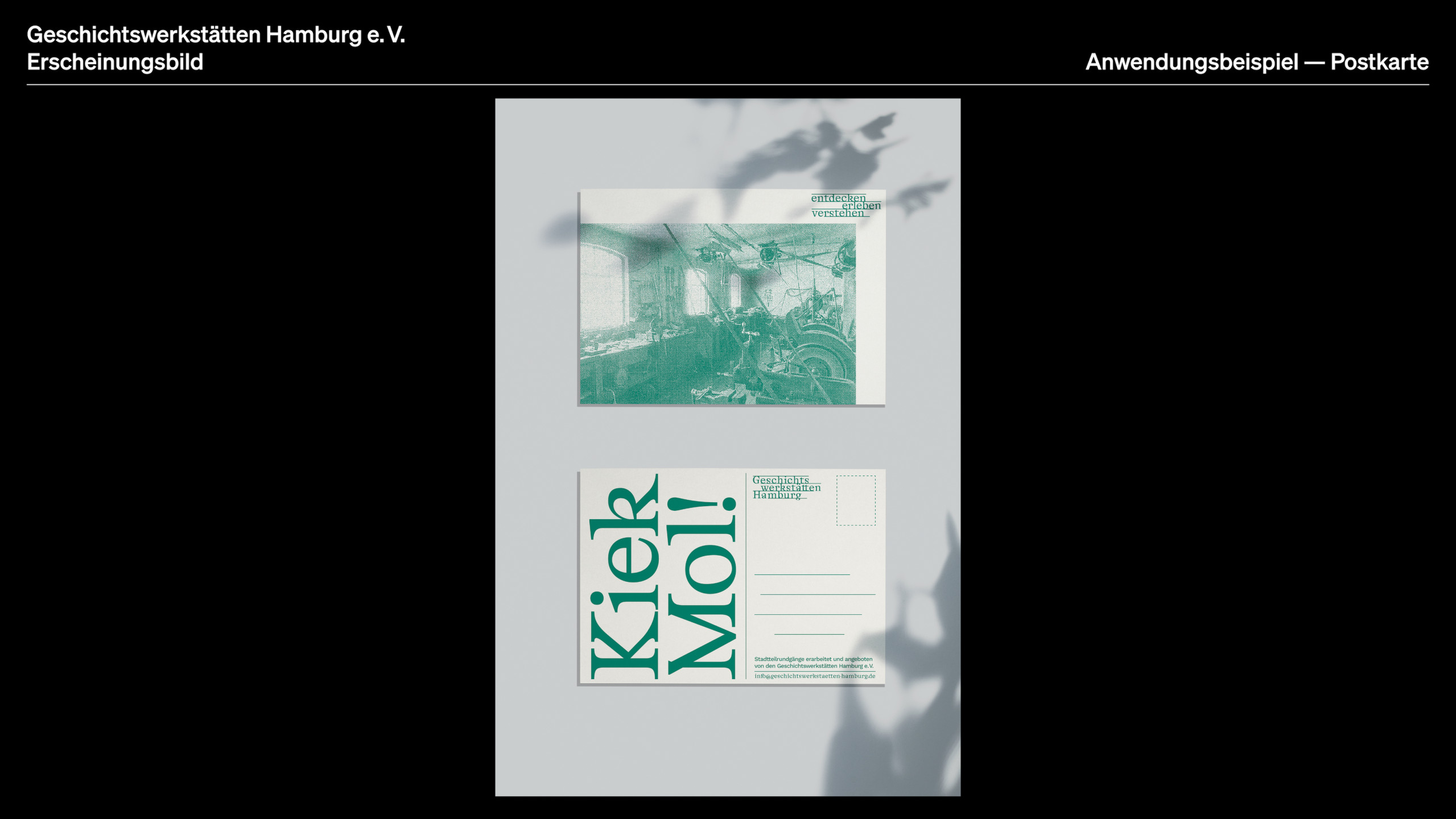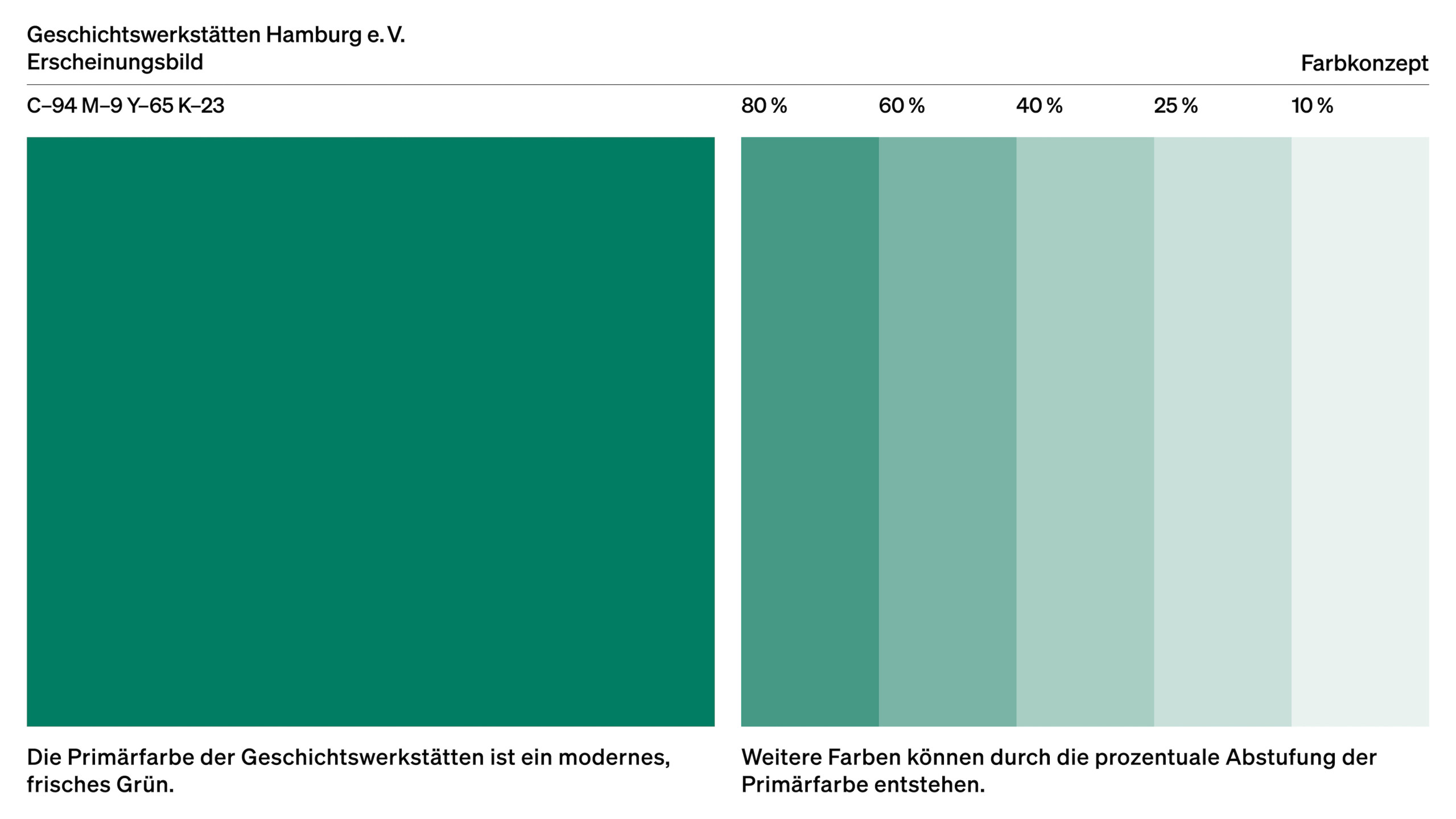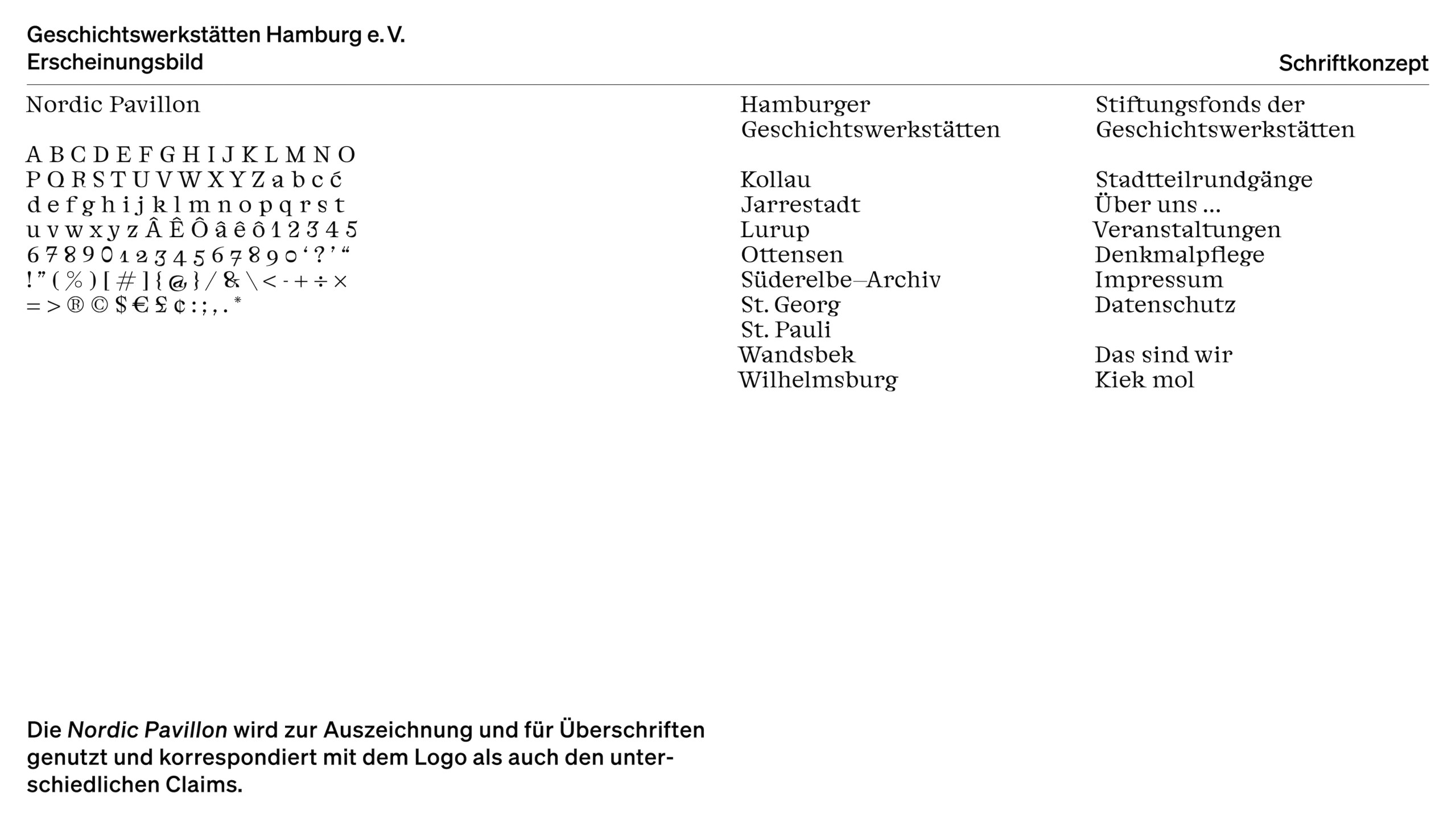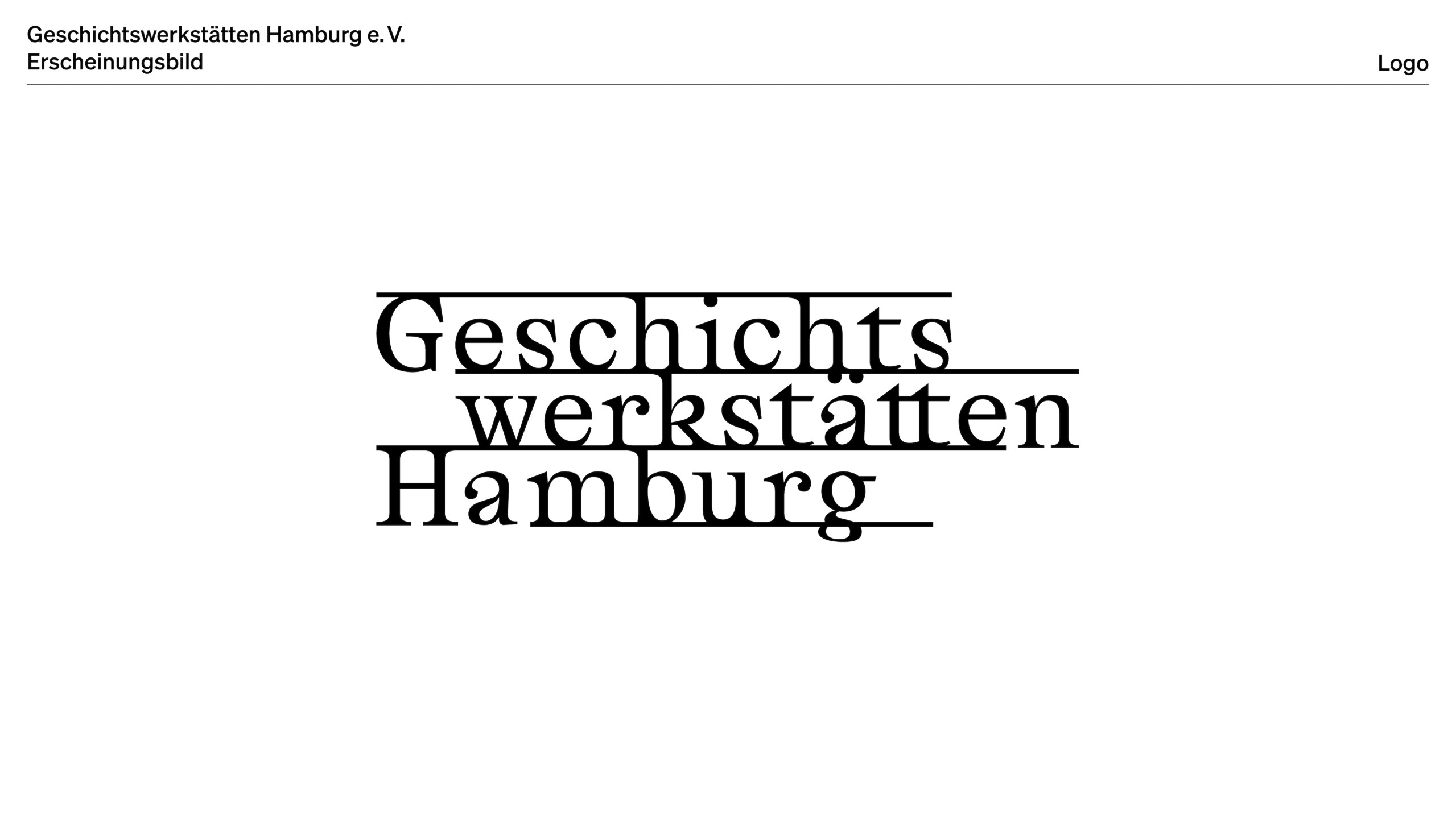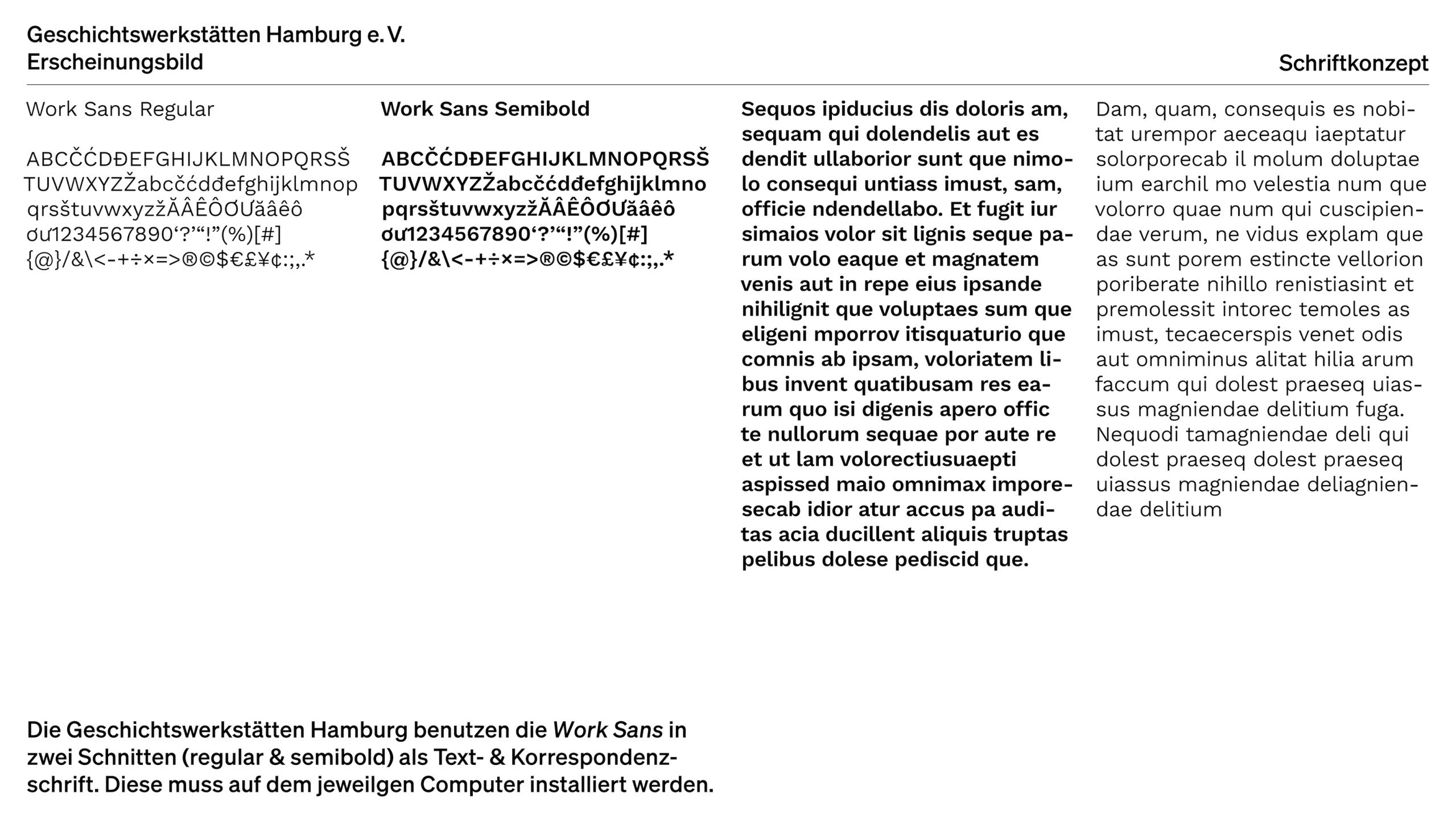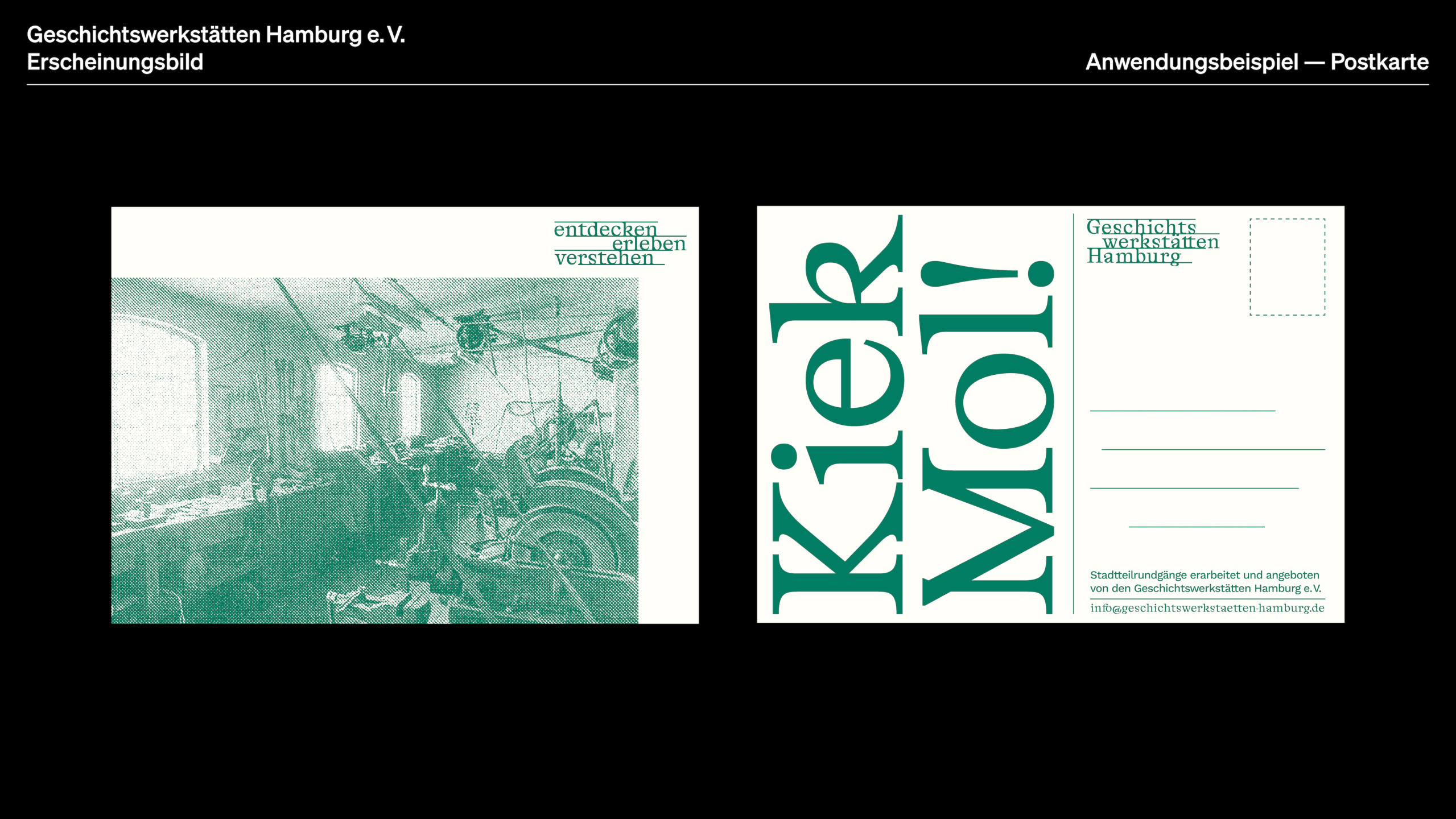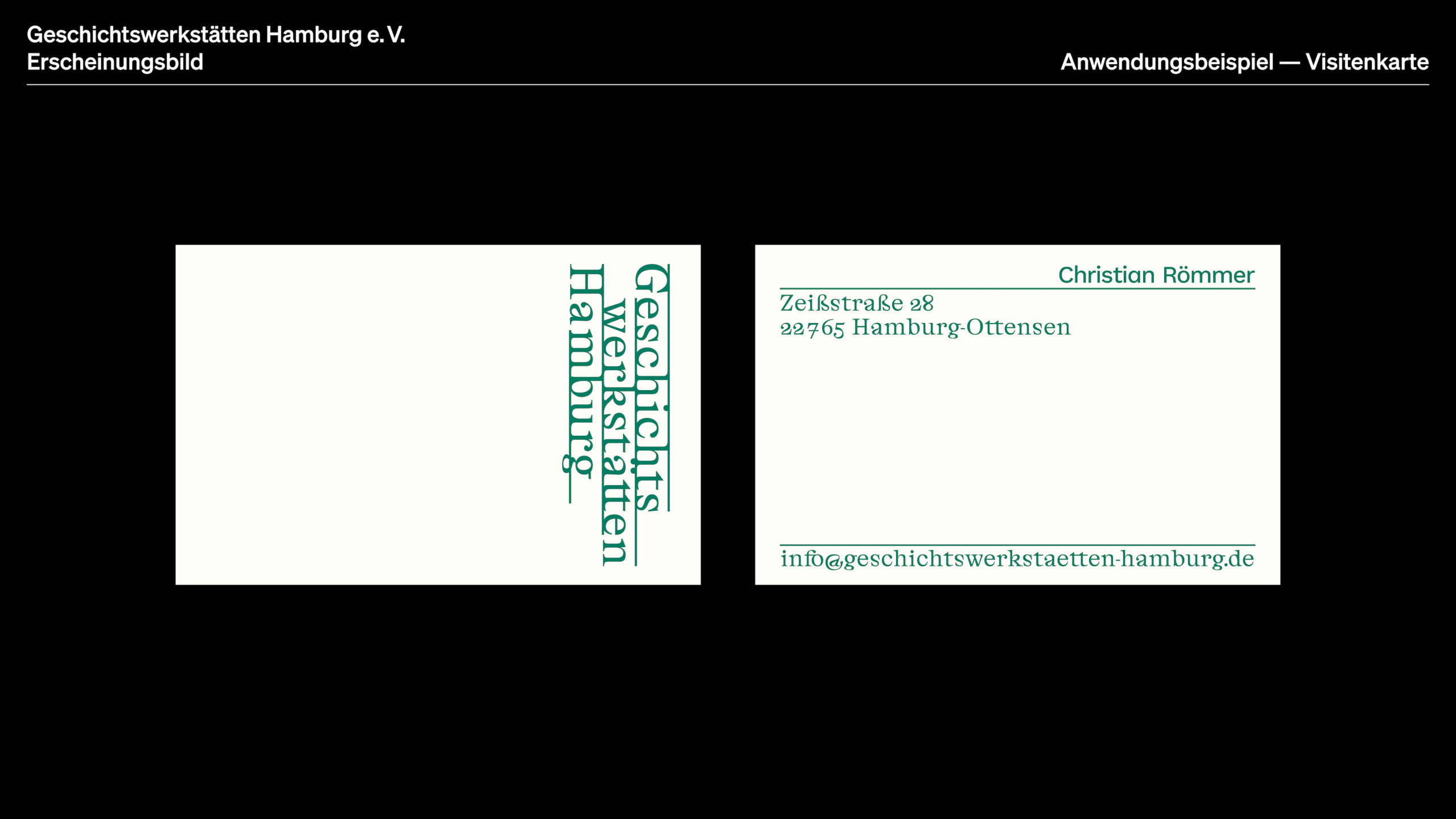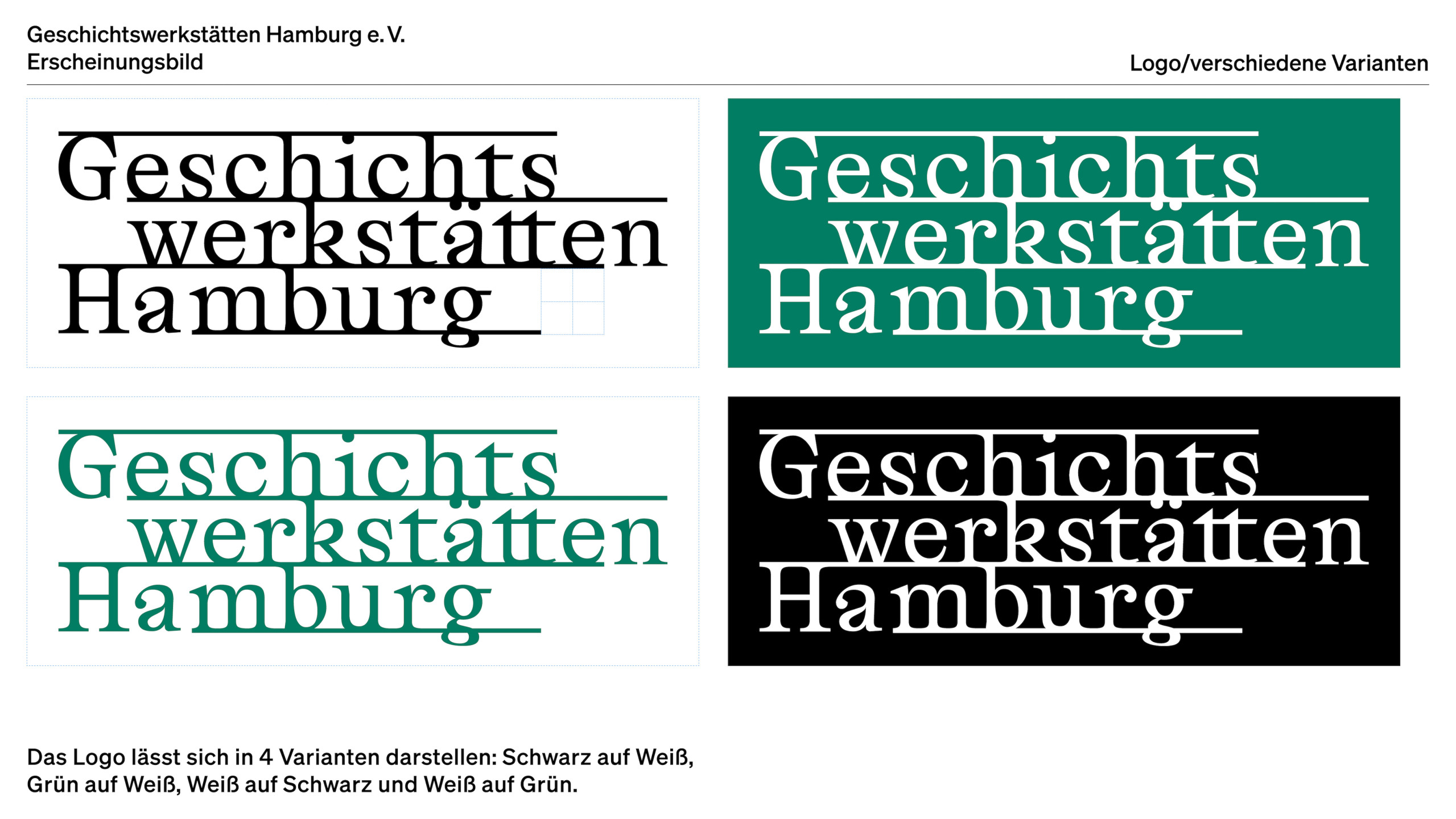
Geschichtswerkstätten Hamburg
The Geschichtswerkstätten Hamburg are an association that has been researching and communicating Hamburg’s history since the 1980s. The corporate design radiates clarity and competence through graphic lines and a dark green monochromatic color scheme. The logo is based on the idea of archiving and is built up from staggered steps. Logo alternatives are implemented with different word groups to emphasize the versatility of the association.
As part of rebrand we create a custom logo type, letterhead, multiple publications and posters and a website.
Typeface: Work Sans by Googel Fonts (Wei Huang)
& Nordic Pavillion by Scott Vander Zee